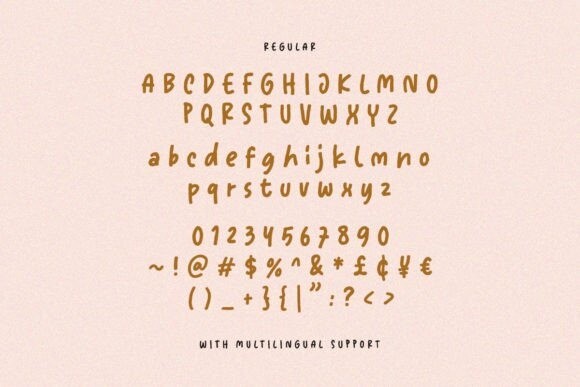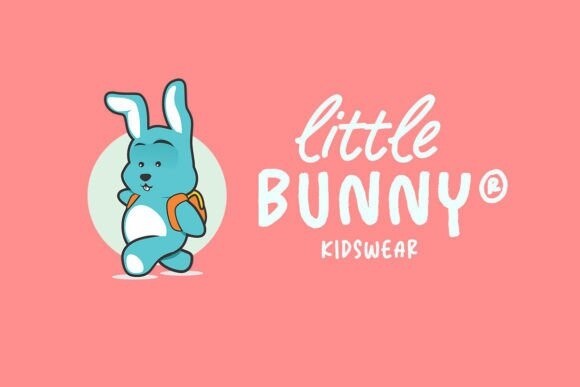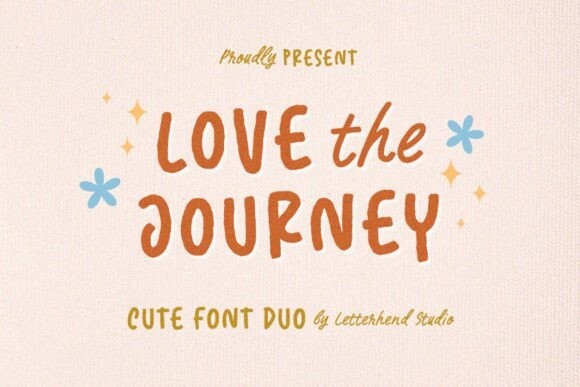
Love the Journey Font
Love The Journey Font is a cute handwritten font. It comes with 2 looks, regular and slant. Whether you’re using it for crafts, digital design, presentations, or making greeting cards, this font has the potential to become your favorite go-to font, no matter the occasion!